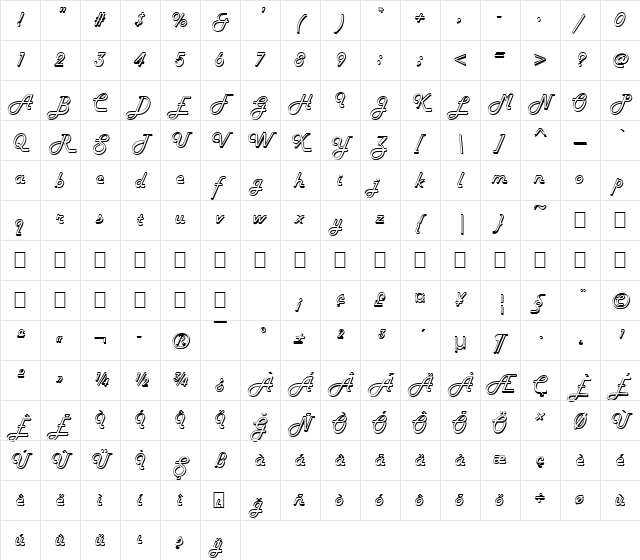
Harlow Regular Free Font
Harlow Regular
Harlow Family
Harlow Regular
Design Context for Harlow
Harlow is a composed and adaptable typeface that performs quietly and consistently across a wide range of design contexts.